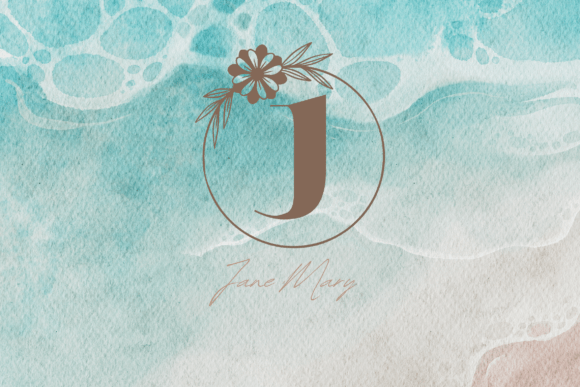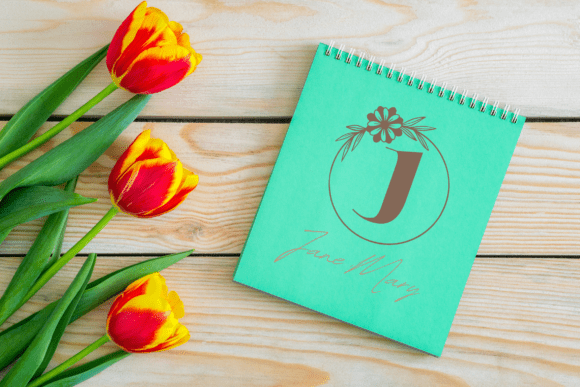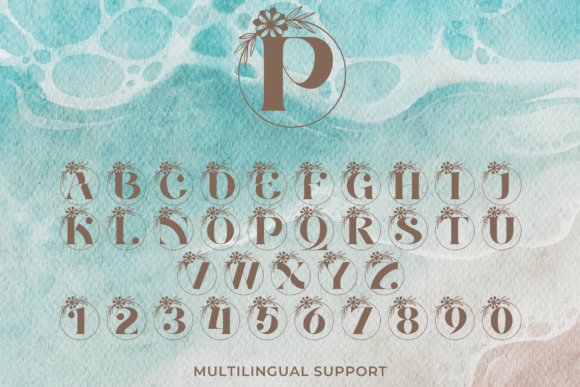
Introduction to Petal Flower Monogram Font
Petal Flower Monogram is a delicately crafted monogram font inspired by soft flower petals and botanical grace.
With each character adorned in hand-drawn floral embellishments, this font is ideal for romantic projects, wedding invitations, springtime branding, personalized gifts, and more Its subtle yet elegant design brings a natural, heartfelt charm to every detail.
Key Features of Petal Flower Monogram Font